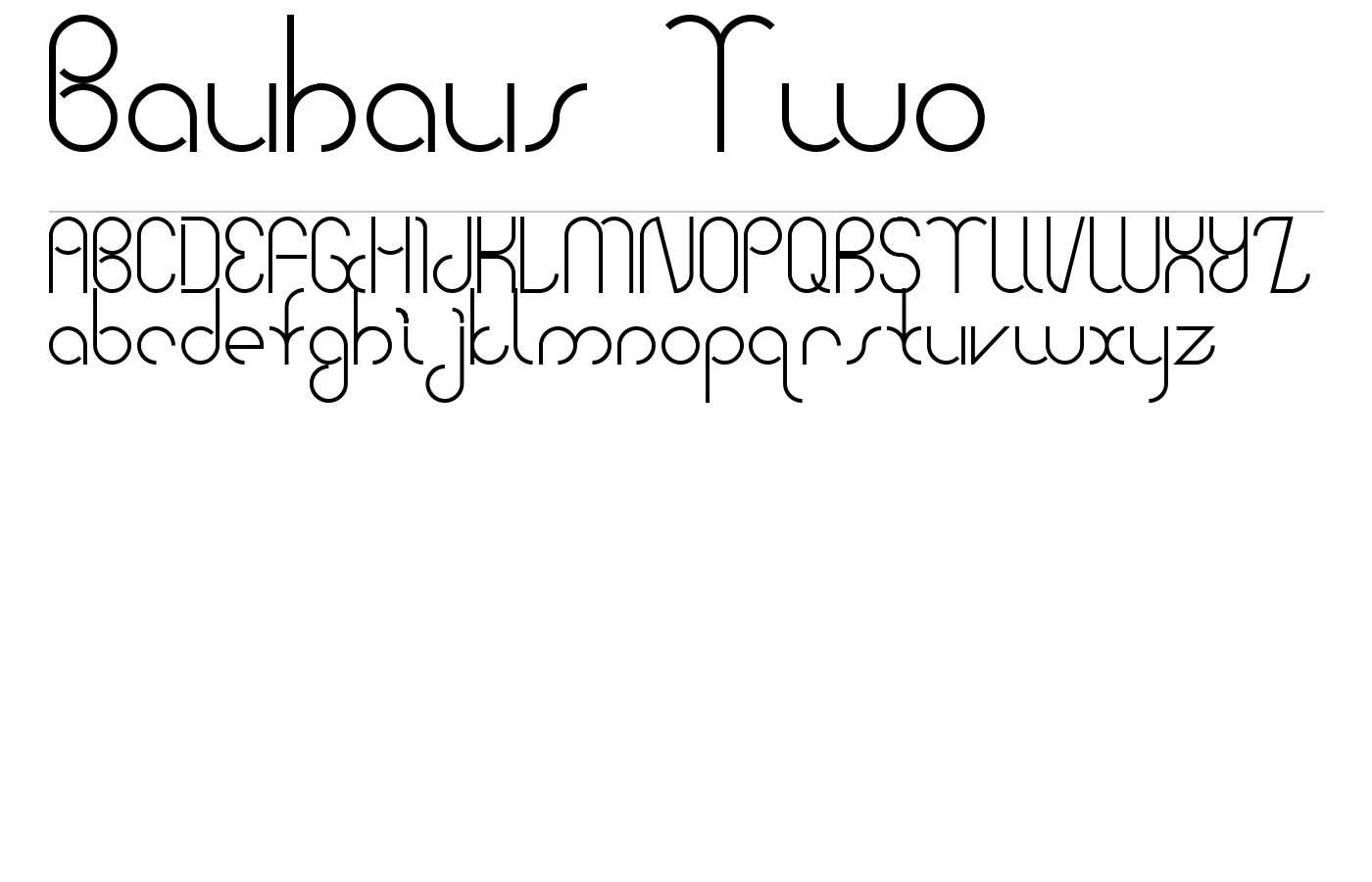
Bauhaus Two is a sleek, geometric sans serif font characterized by its thin, consistent line weight and tall, narrow letterforms that evoke a modern, minimalist aesthetic. Its unique curves and clean, rounded edges give it a stylish, futuristic feel perfect for creative branding, fashion logos, and contemporary editorial design where a distinctive and elegant look is desired. This font works best in display sizes, making it ideal for headlines and eye-catching titles rather than body text.
Bauhaus Two Font